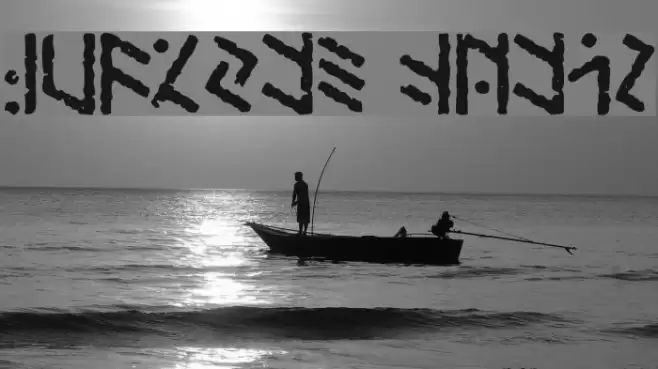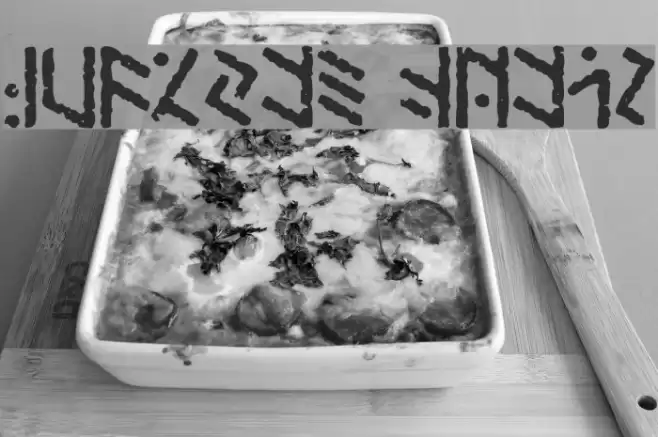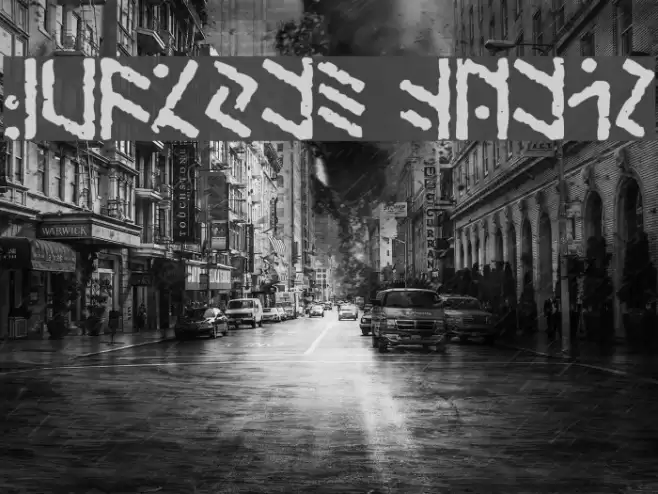
Temphis Brick Font
Temphis Brick Description
This design features a highly decorative and abstract style, resembling ancient or fictional scripts. The characters are composed of bold, irregular strokes with a rough texture, giving them a hand-carved appearance. The overall aesthetic is mysterious and otherworldly, making it suitable for creative projects that require a unique and enigmatic look. The characters are not easily recognizable as standard alphabetic or numeric symbols, suggesting a use in artistic or thematic contexts rather than practical text applications.
A decorative, abstract script with a mysterious, ancient appearance from Dingbats fonts.
- Proposed Projects: Ideal for fantasy-themed designs, game interfaces, or artistic projects requiring a unique script.
- Use Case: Artistic projects, fantasy themes, decorative purposes.